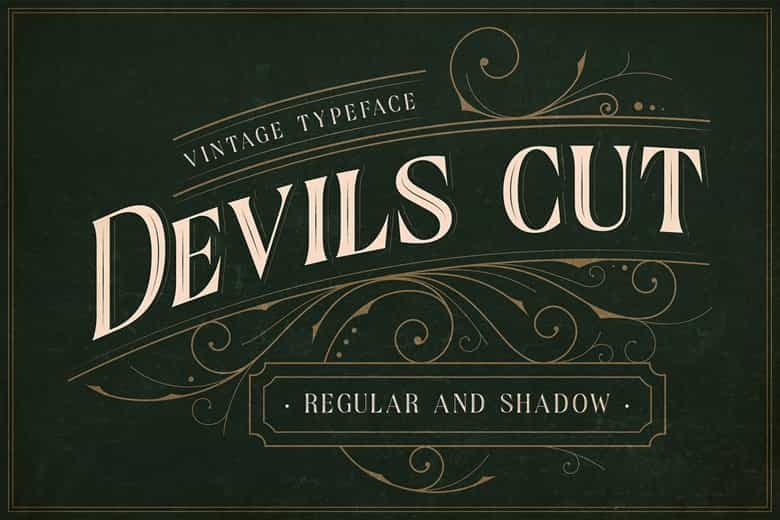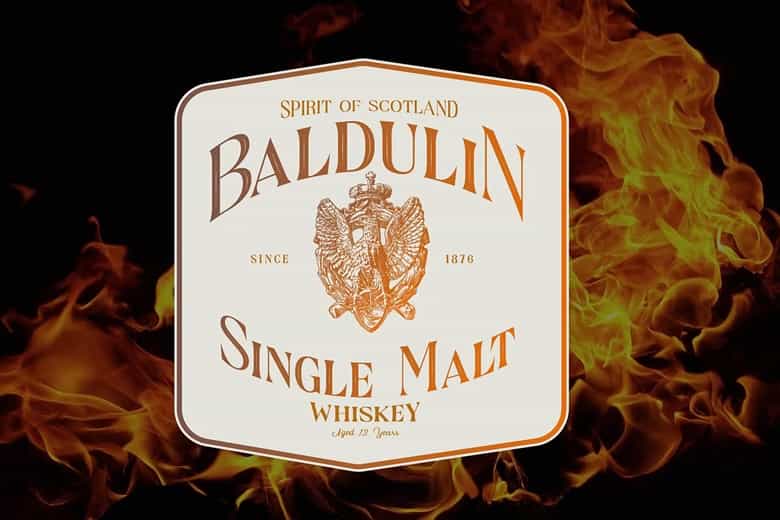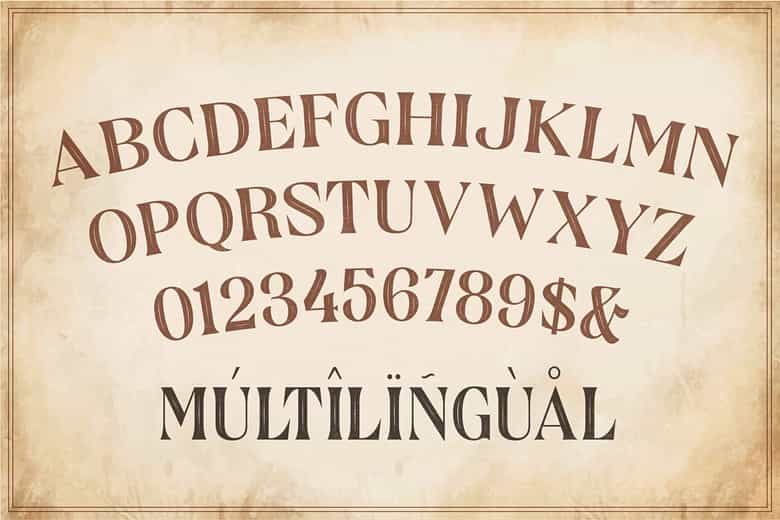
Devils Cut is a modern vintage serif font. It features 2 styles: Regular & Shadow meaning you can have a normal layered hair style and a shadow layered hair style all in one. Devils Cut also has a subtle inline effect, thus enhancing the design even further.